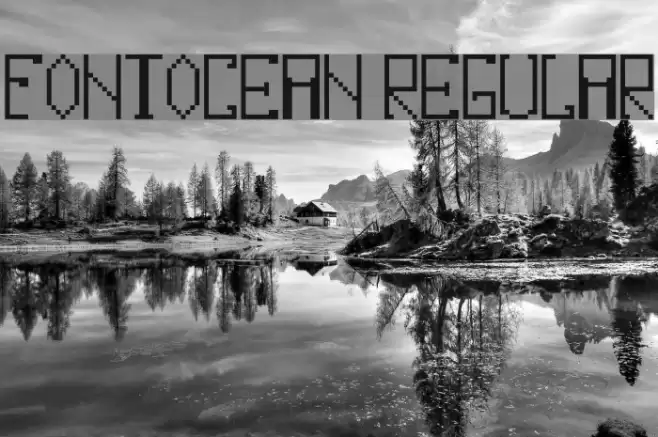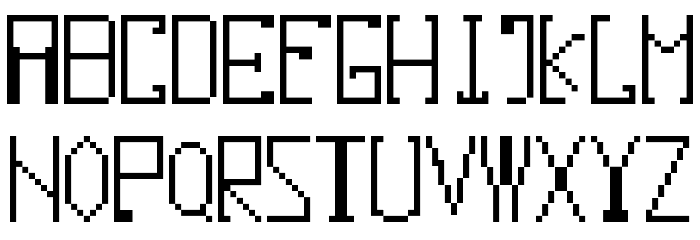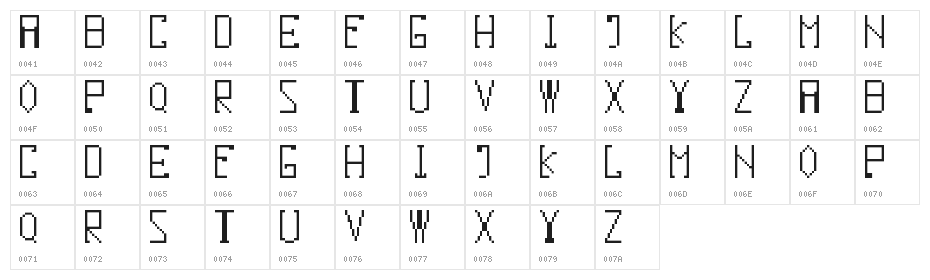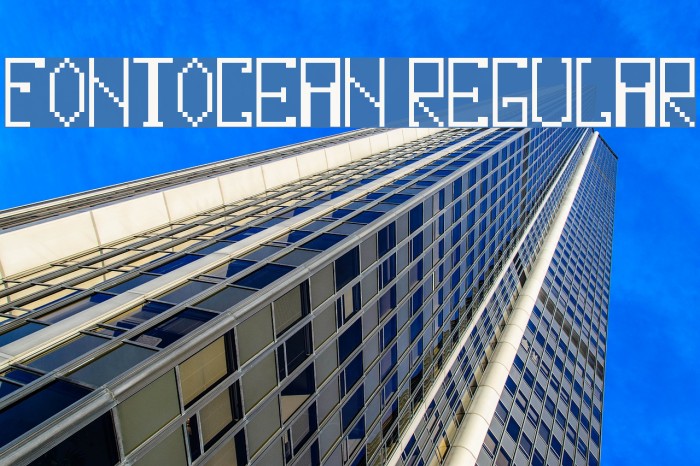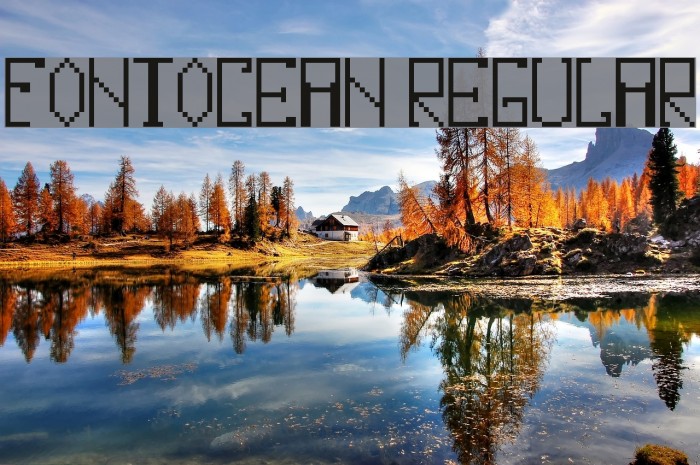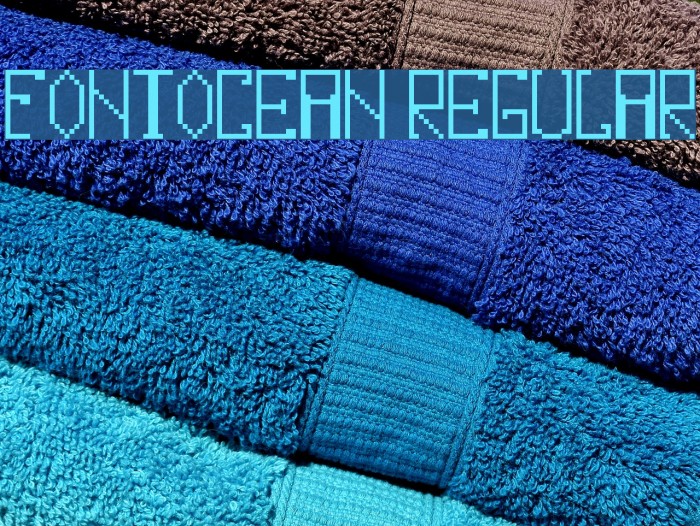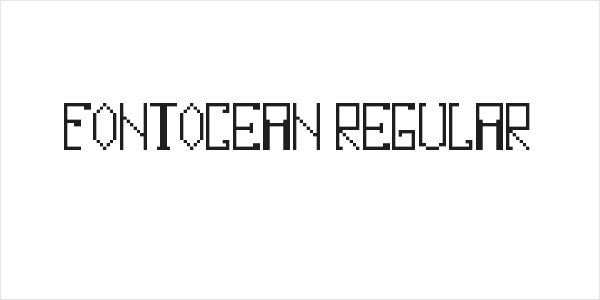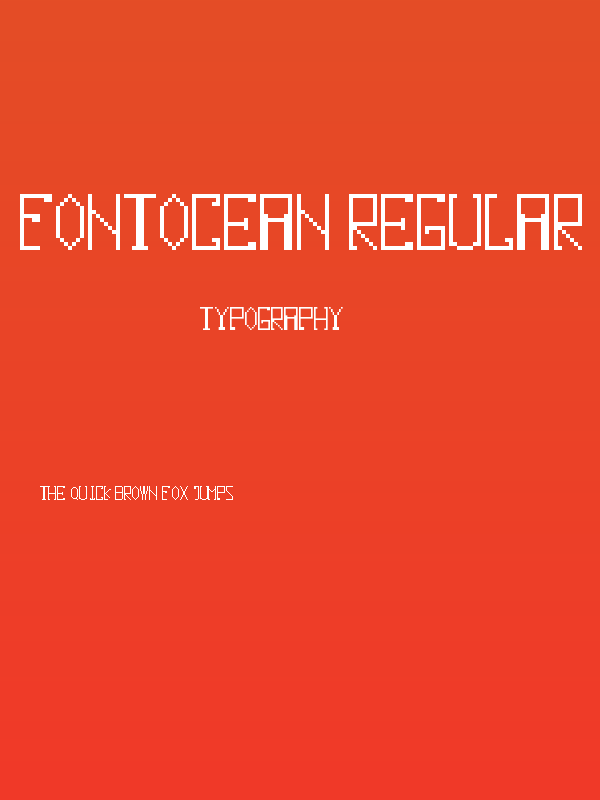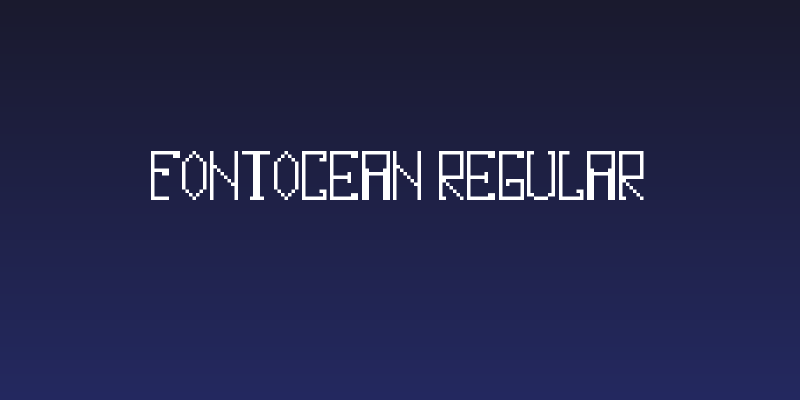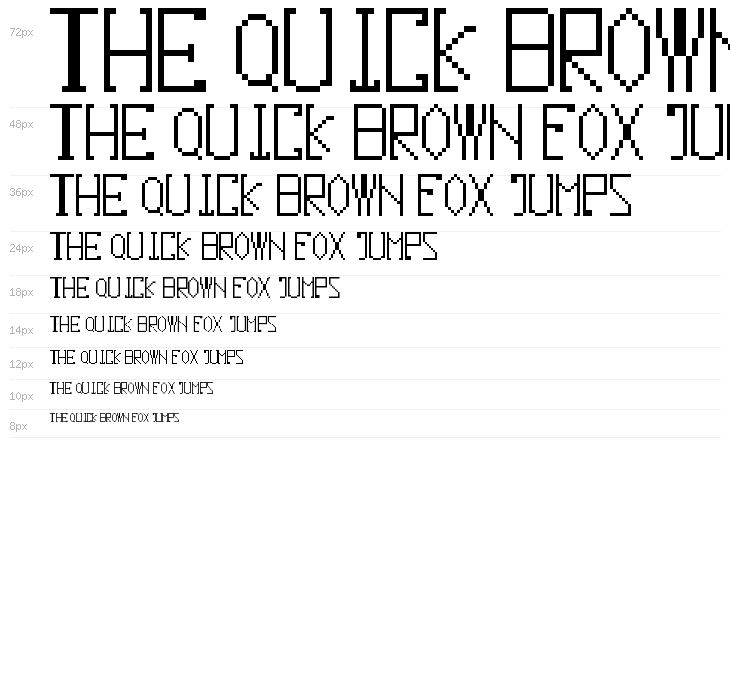
fontocean Regular Font
fontocean Regular Description
This font features a pixelated, grid-like structure that evokes a retro, digital aesthetic reminiscent of early computer graphics. Each character is composed of uniform square blocks, giving it a distinctly geometric and modular appearance. The uppercase and lowercase letters maintain a consistent height, contributing to a monospaced feel, although the font is not strictly monospaced. The design is straightforward and functional, with minimal embellishments, making it suitable for conveying a sense of simplicity and clarity. The characters are evenly spaced, ensuring readability while maintaining the font's unique style.
A pixelated, grid-based font with a retro digital aesthetic from Uncategorized fonts.
- Proposed Projects: Ideal for video game design, digital art projects, retro-themed websites, and tech-related branding.
- Overall Style: Retro, Digital
- Use Case: Headlines, Logos, Digital displays